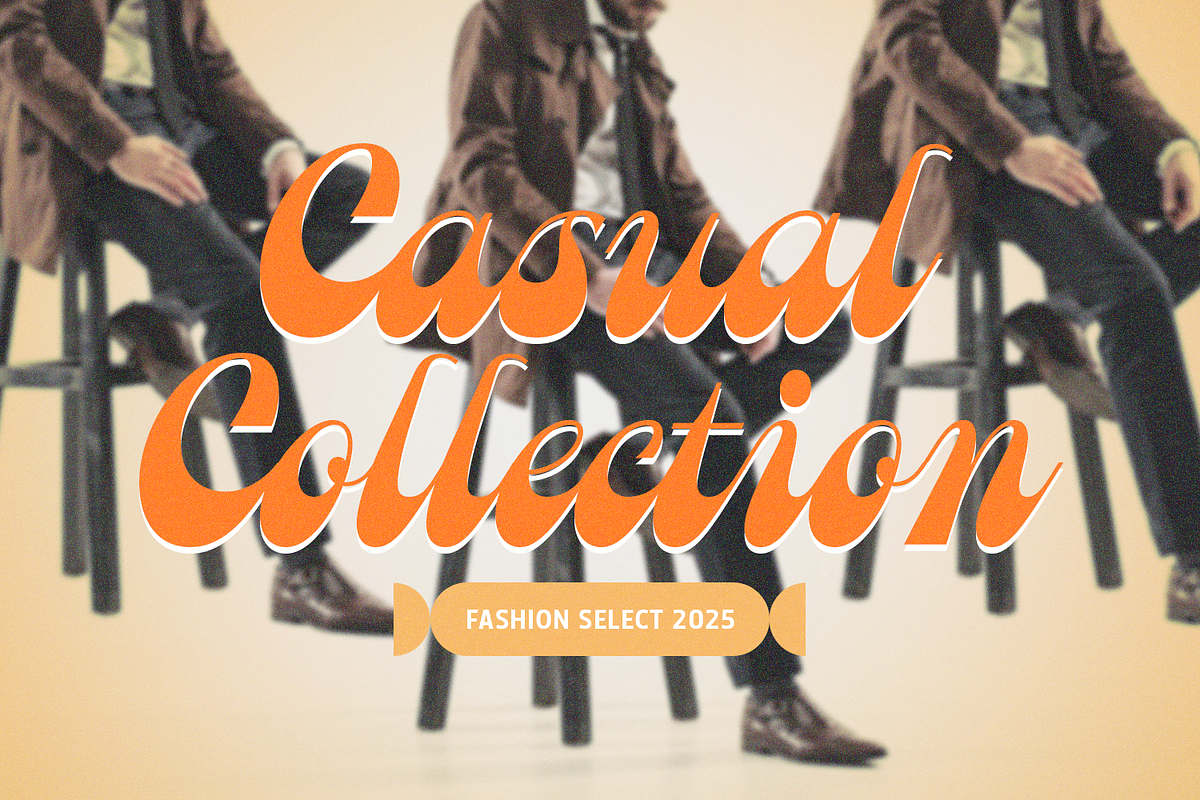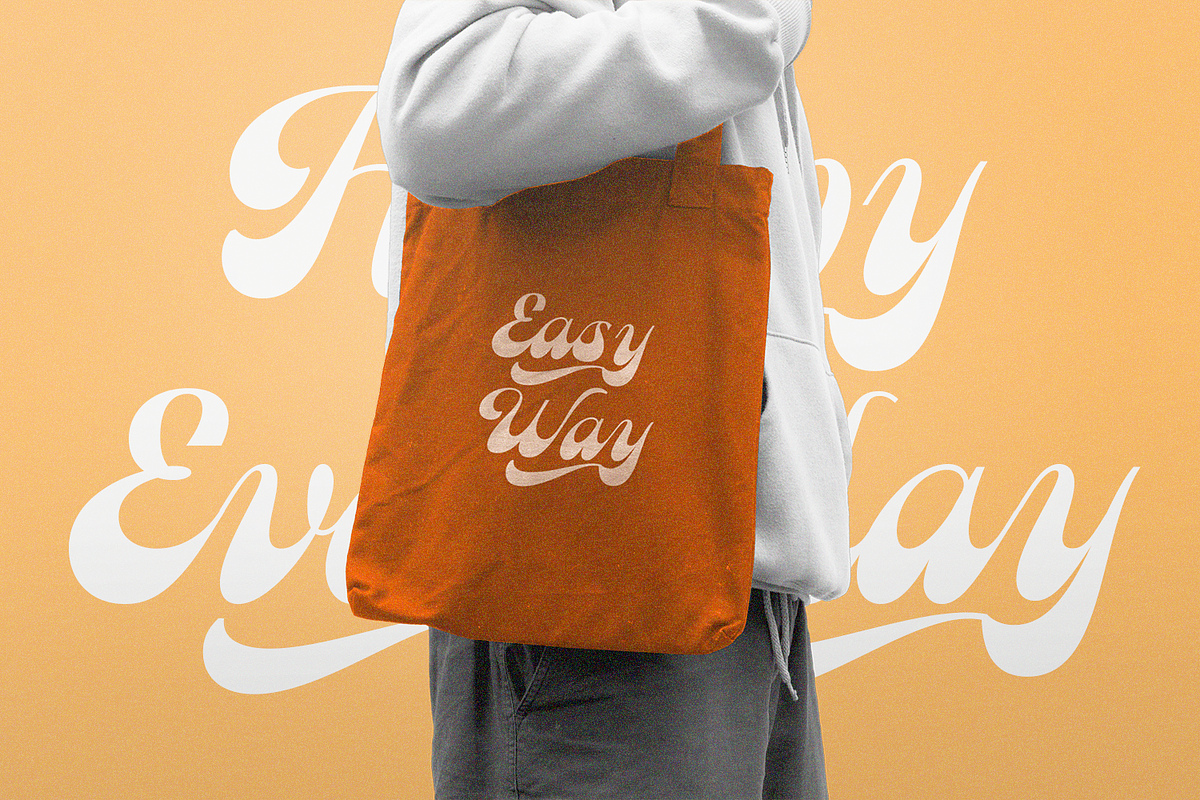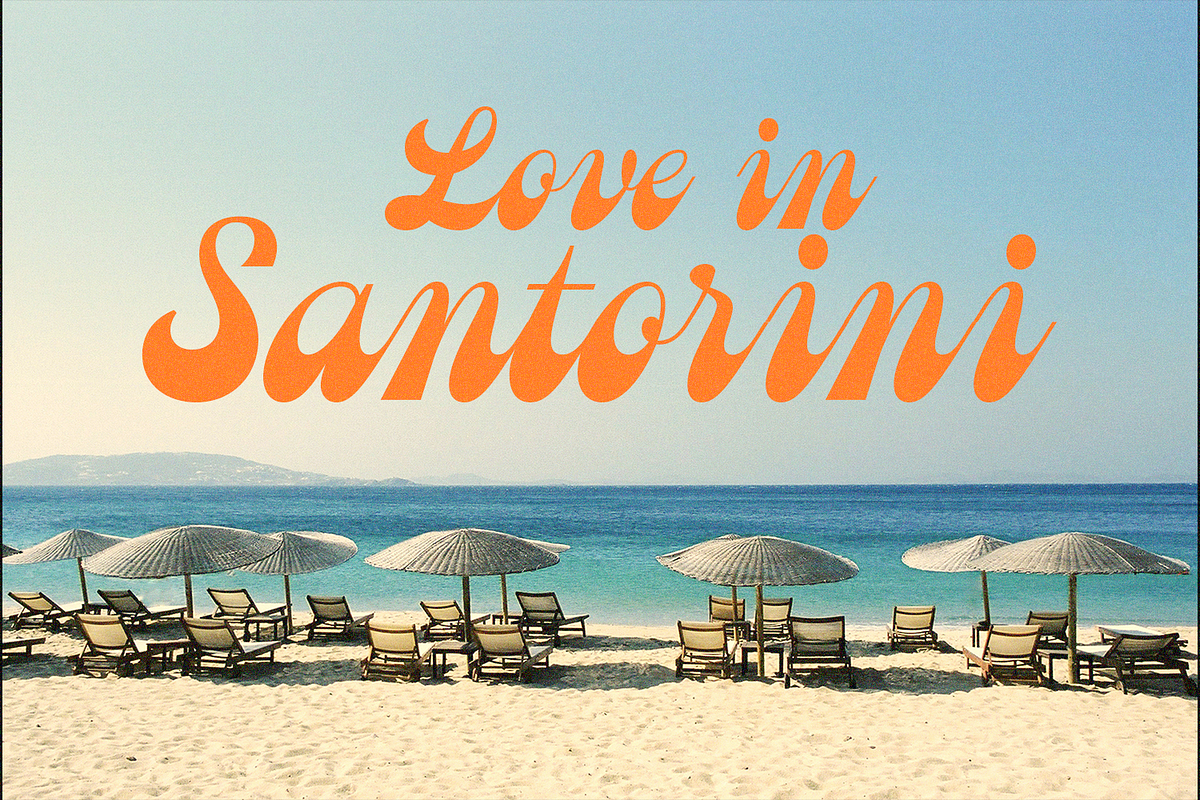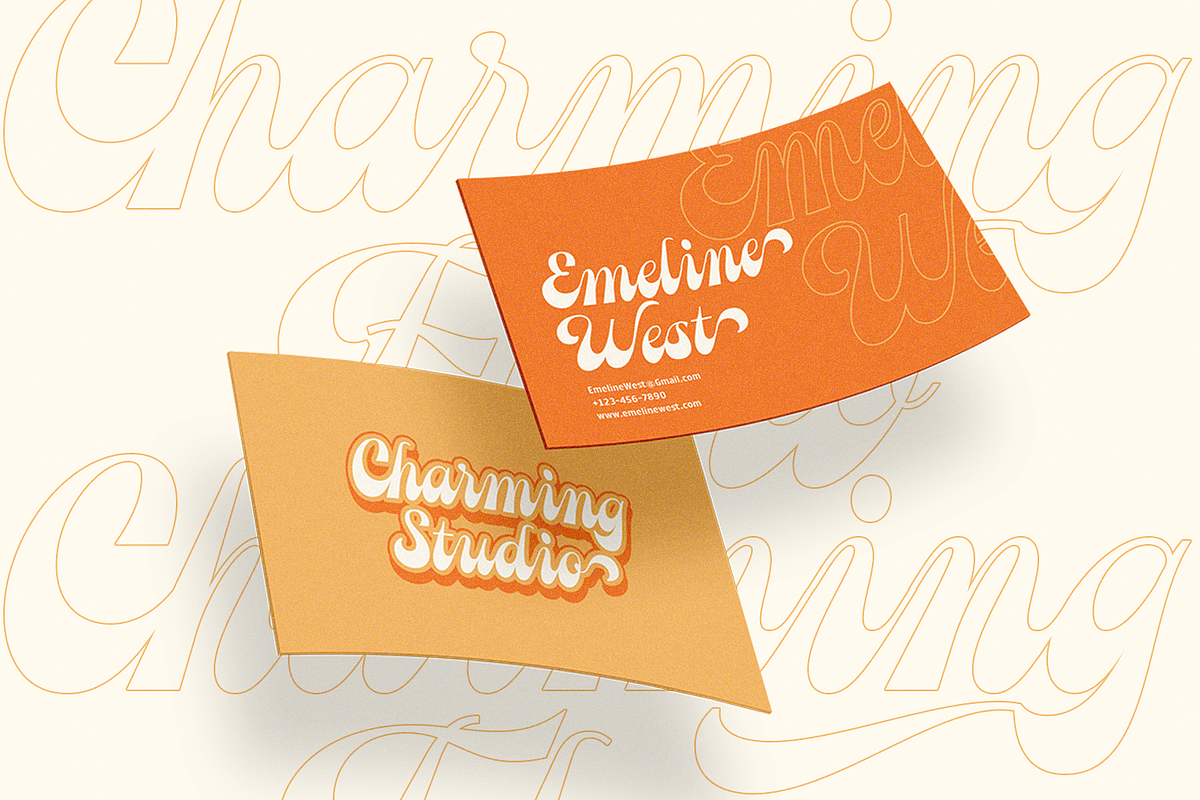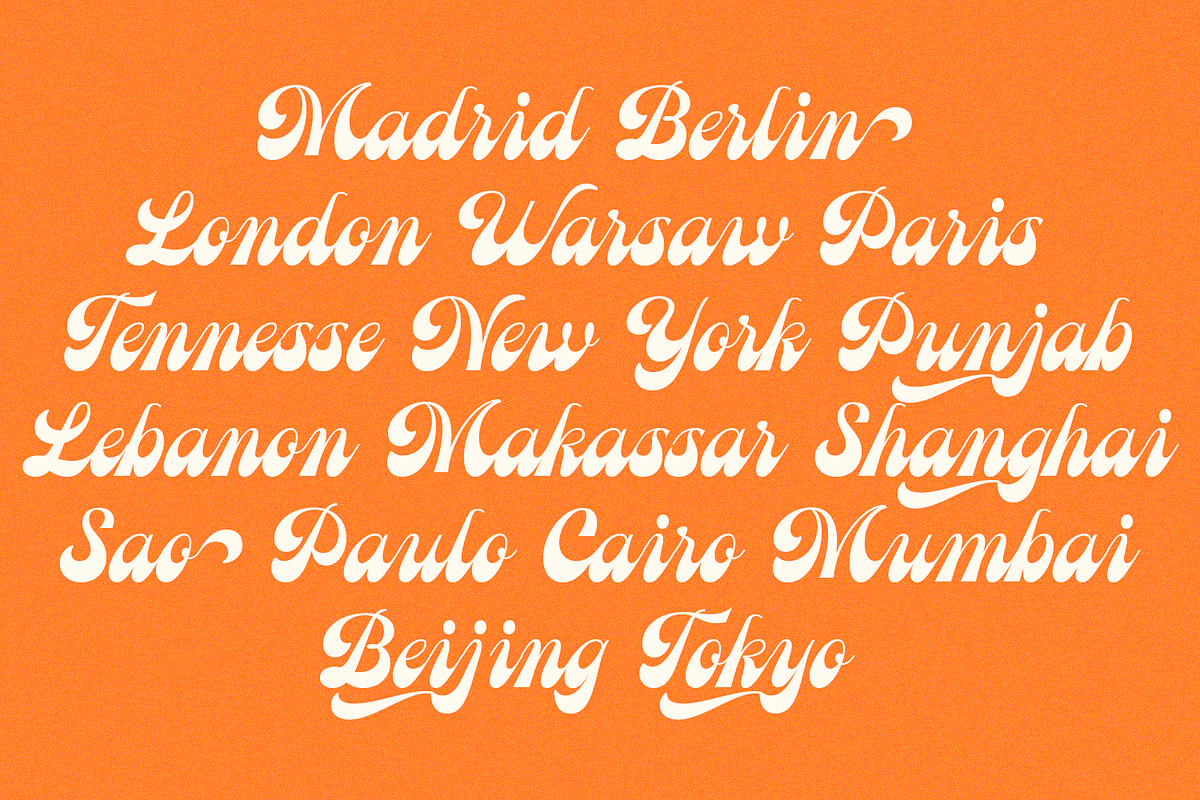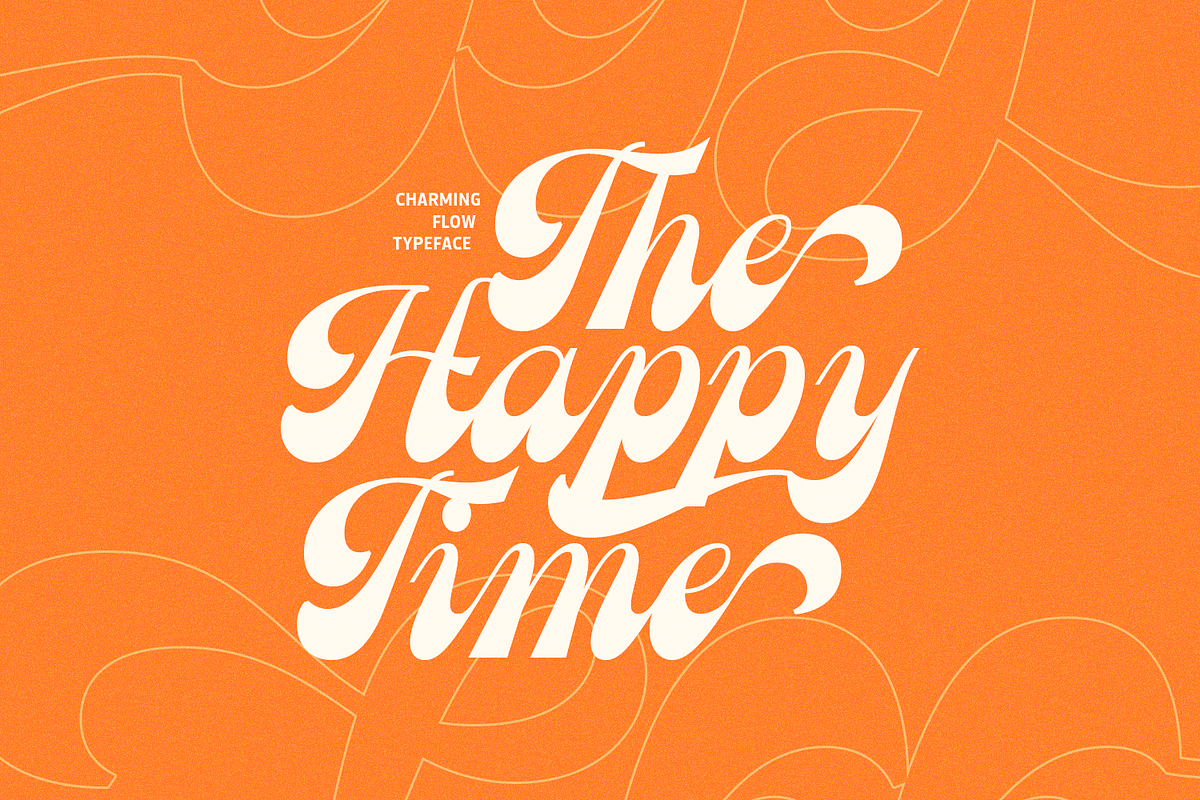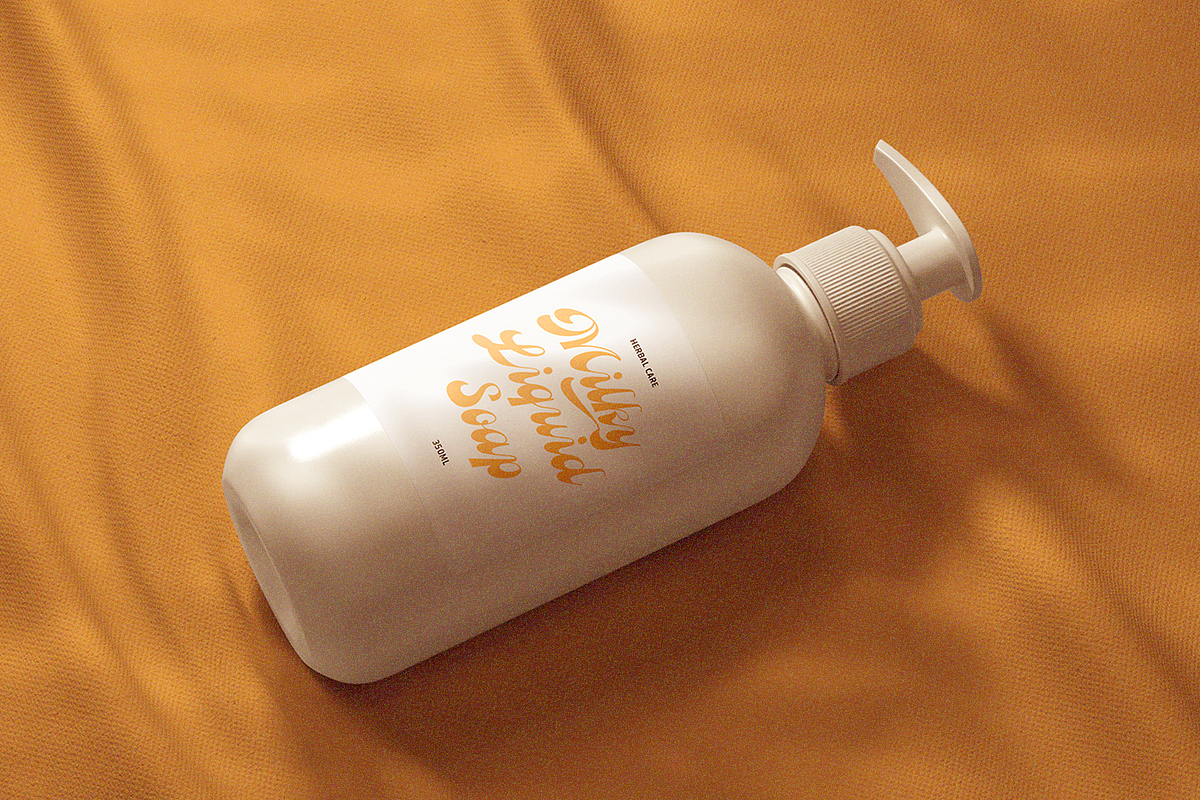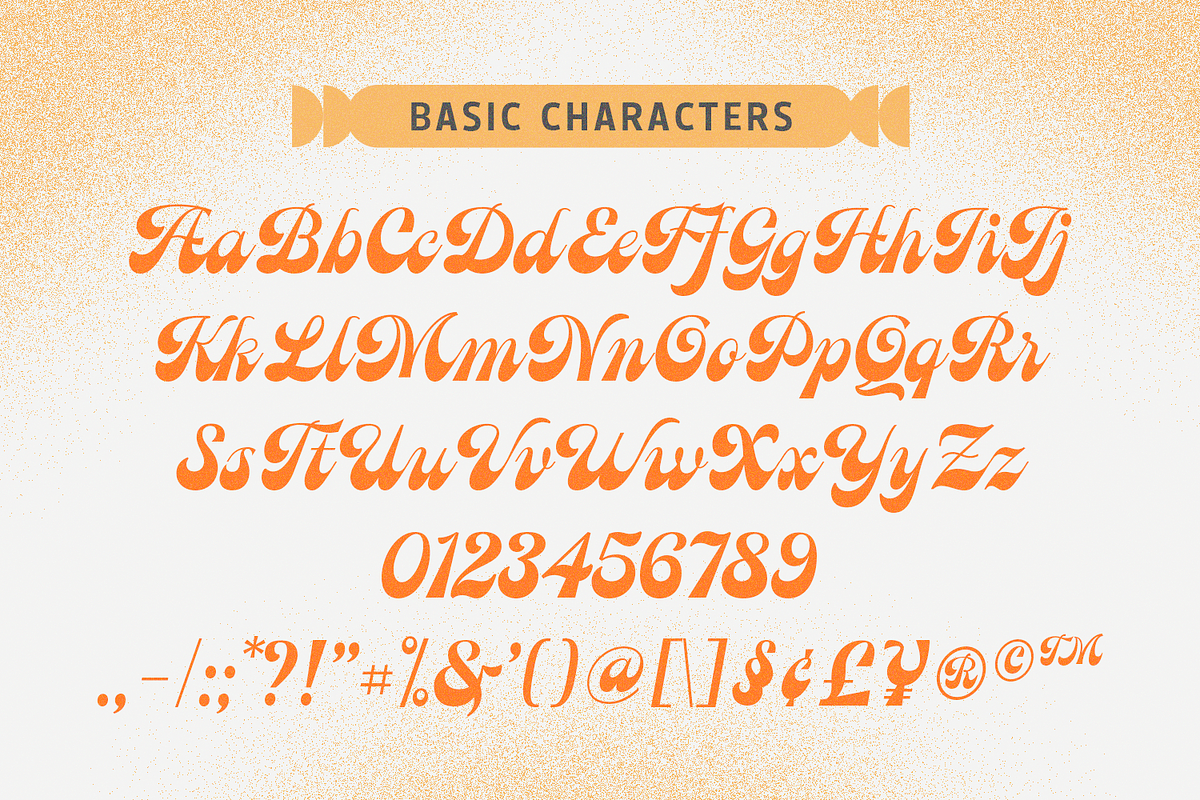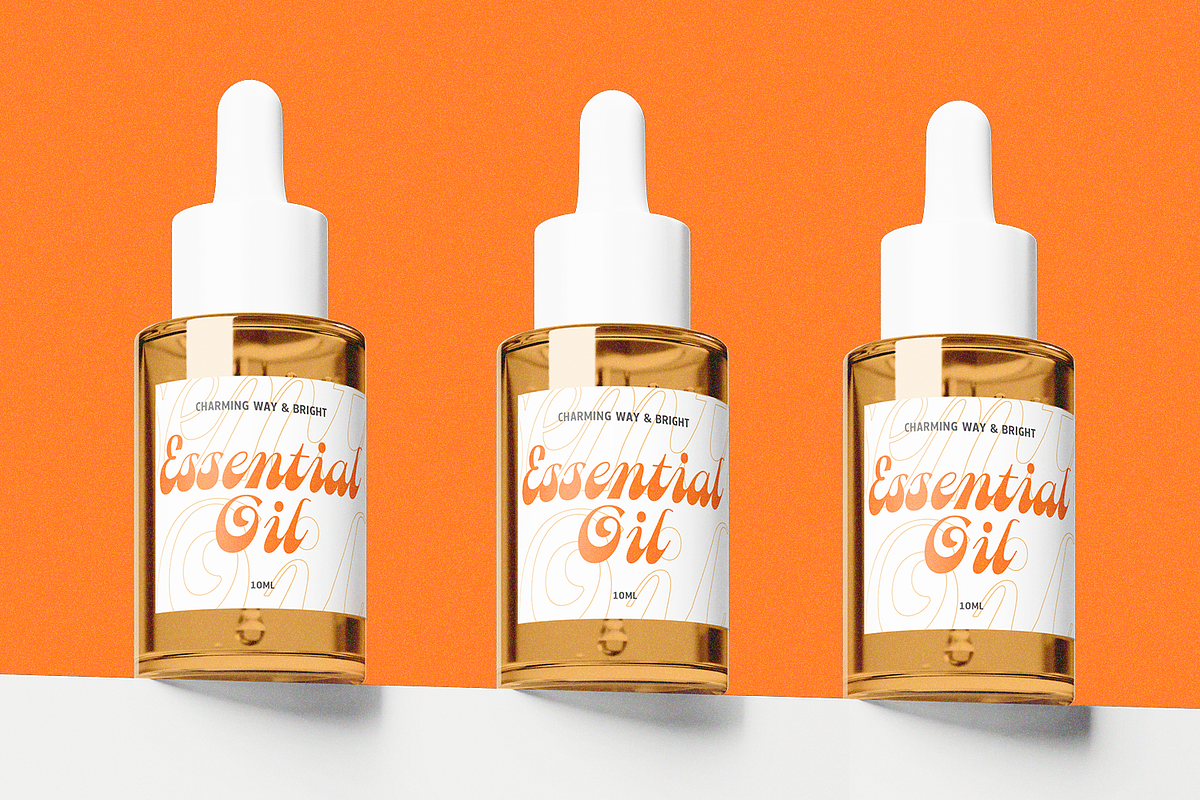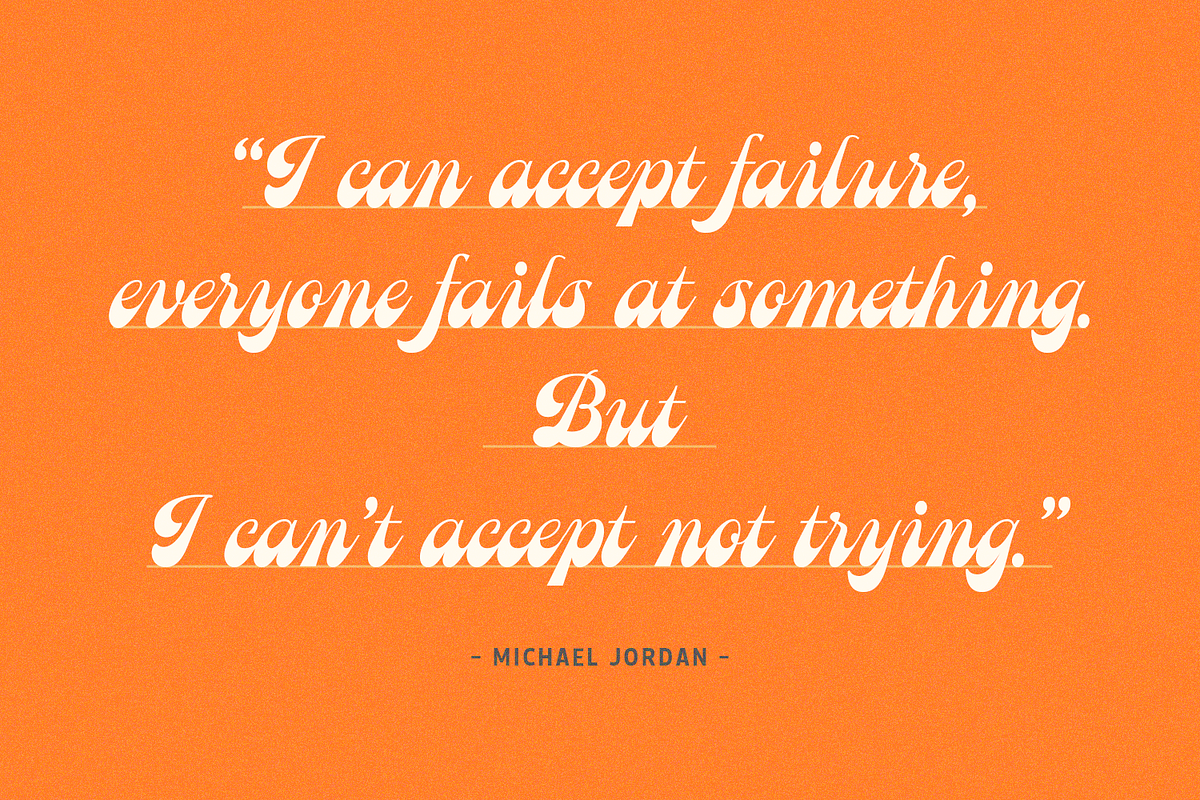
Charming Flow – Classic Script
Charming Flow is a beautifully crafted script font that embraces a classic vintage aesthetic. Its timeless design makes it a perfect fit for retro or vintage-themed projects, adding a touch of elegance and nostalgia. Despite its vintage appeal, Charming Flow is versatile enough to complement a variety of design styles, offering flexibility for both modern and traditional applications.
Whether you’re working on branding, posters, or any creative project, this font brings a graceful and sophisticated flow to your designs, enhancing their overall charm and visual appeal.
- Ligatures glyphs
- Alternate glyphs